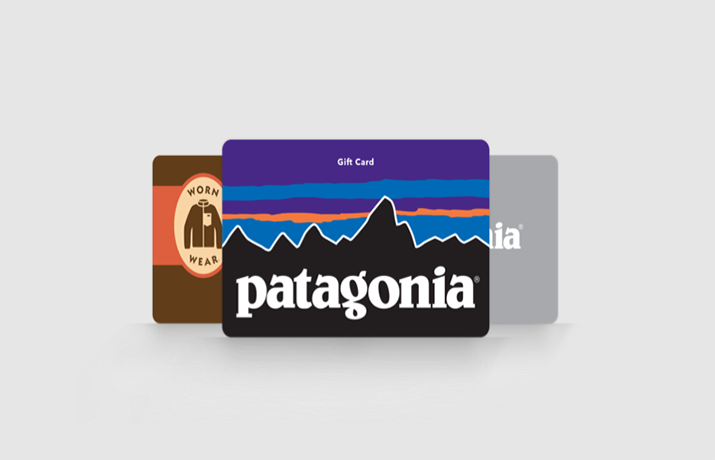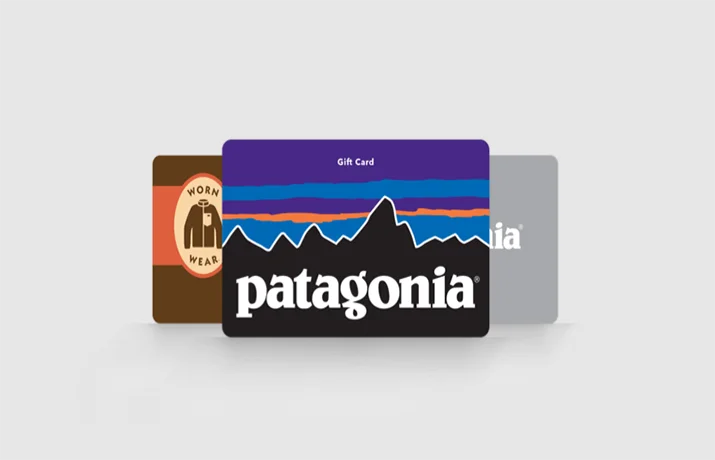
Introducing another famous logo font, Patagonia Font Family !! This font is being used for the logo of the Patagonia clothing company based in California.
This display serif font family is also known as the Belwe typeface. George Belwe for Schelter & Giesecke in Dresden took charge of designing it for the first time in 1907.
Due to its modern design, various designers are looking forward to having this font for commercial purposes. Take a look at the exact minutes of all the font family letters.
| Font Name: | Belwe Font Family |
| Style: | Logo, Serif, Typeface |
| Font Designer: | George Belwe |
This typeface will make a good pair with other serif fonts like Otama E.p. Font by Tim Donaldson and Junicode Font by Peter S. Baker
It has come in seven weights including Light, Medium, Condensed, and some others. These features make this stylish font family different from others.